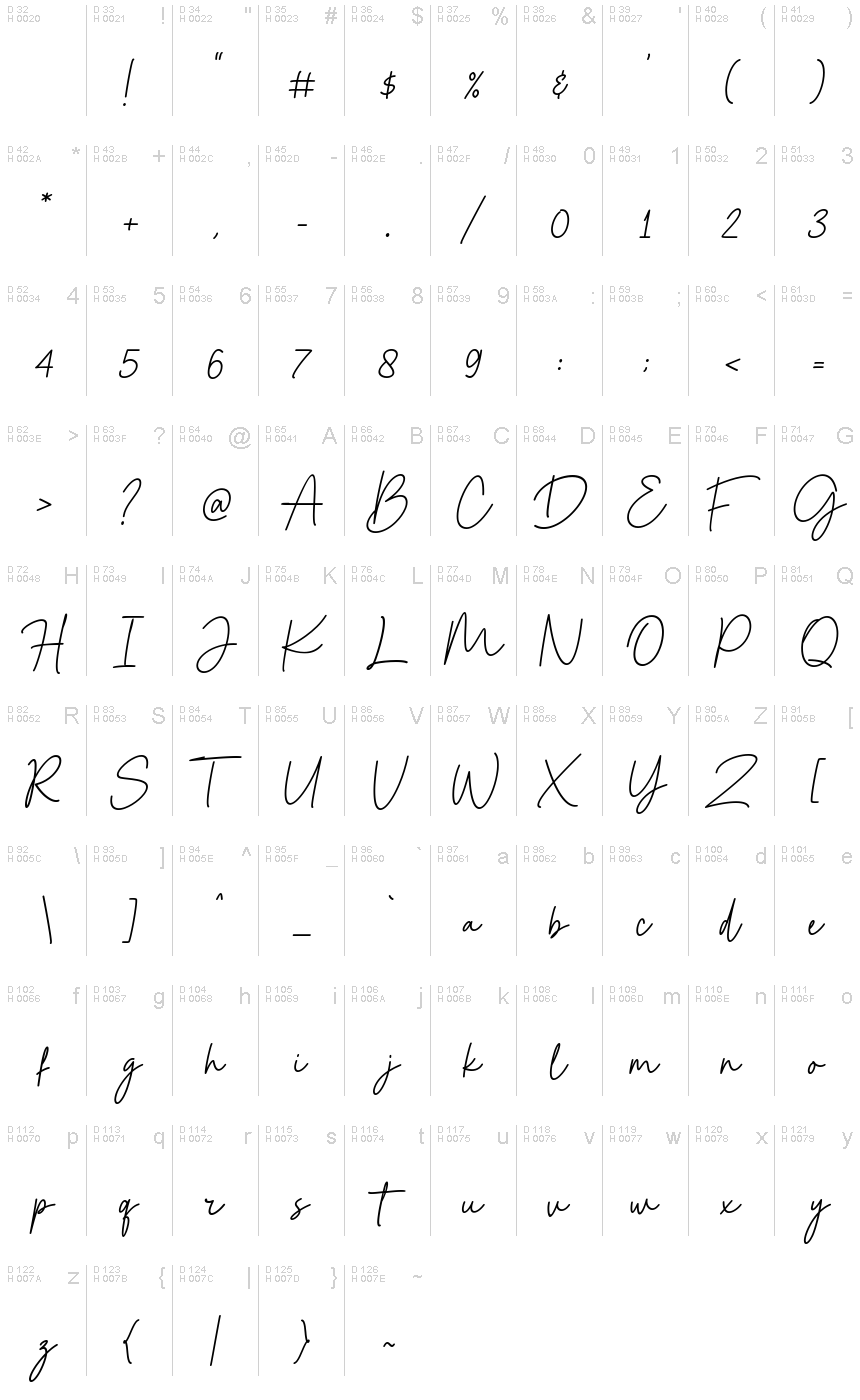
Hattinand, designed by sronstudio, exudes the elegant charm of a handwritten signature. Its light weight enhances its airy and sophisticated aesthetic, making it an ideal choice for adding a touch of personal flair to your designs. The fluid strokes and natural flow lend a sense of intimacy and authenticity.
Perfect for branding projects, invitations, logos, and beyond, Hattinand captivates with its distinctive style. Whether you're creating compelling marketing materials or crafting heartfelt wedding stationery, this font's unique personality will elevate your work.